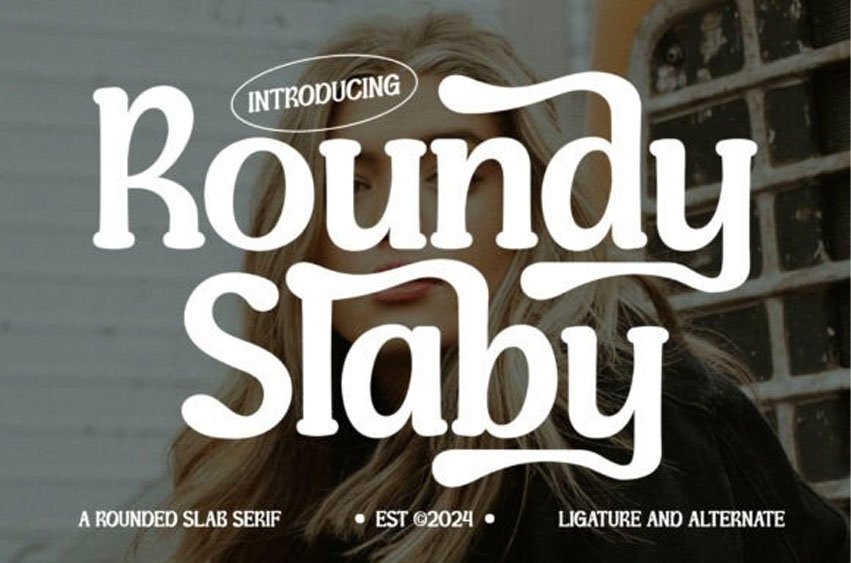
Roundy Slaby Font is a bold and stylish rounded slab serif font that blends classic strength with a modern twist. Its sturdy letterforms are softened by rounded terminals, creating a warm yet confident presence that’s perfect for brands seeking both charm and impact. The gentle curves and thick serifs give it a vintage feel, while the added swashes, ligatures, and alternates introduce a playful, contemporary edge.
Designed to stand out in headlines, logos, posters, and editorial layouts, Roundy Slaby delivers both structure and personality. It’s especially powerful when paired with minimalist backgrounds or lifestyle photography, adding a retro flair without losing clarity. Whether you’re designing fashion campaigns, music covers, coffee shop menus, or bold product labels, this font offers a striking balance between friendliness and bold typographic confidence.
With its versatile design, alternate characters, and expressive ligatures, Roundy Slaby is more than just a display font—it’s a stylish voice for your boldest ideas.